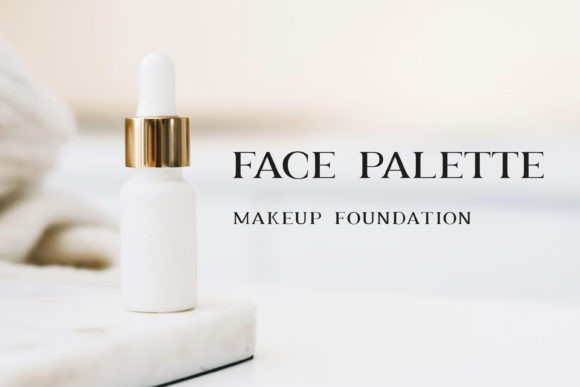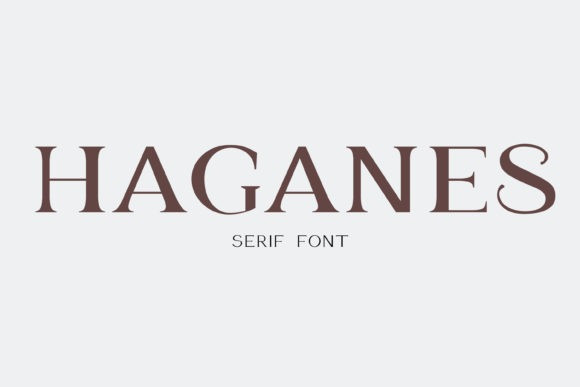
Haganes Font
Haganes Serif Font is a serif font with a modern look and minimalistic style. Haganes is universal, and it works great in headlines, high-end branding, logo designs, magazines, product packaging & invitations.